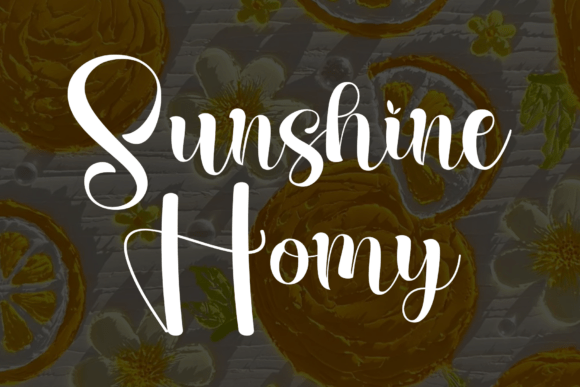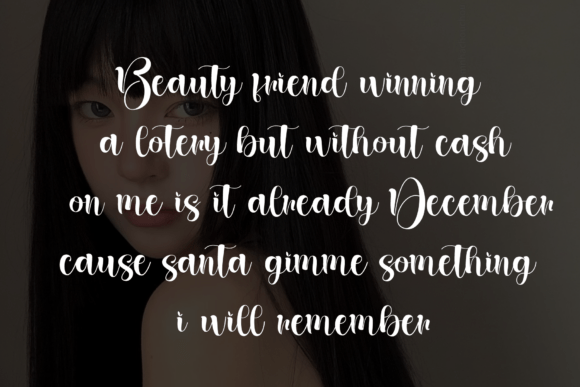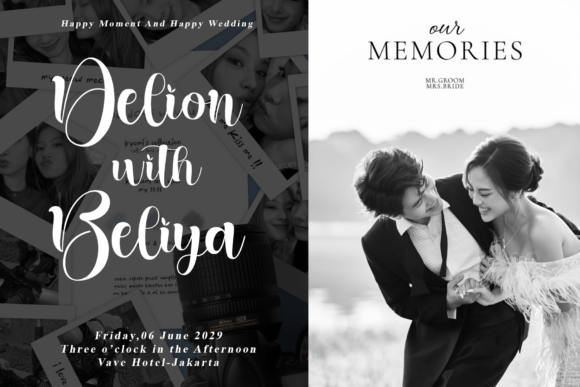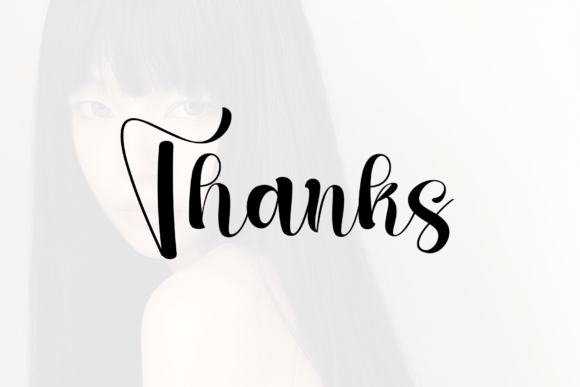
The Magic of Darling Beliving Font
Have you ever found yourself lost in the enchanting glow of a summer evening, the soft light dancing across the pages of your notebook as you pour your heart onto the paper? It’s in these moments of creative freedom that the perfect font can transport us to a world of elegance and sophistication. For designers seeking to capture the essence of luxury and romance in their work, the Darling Beliving Font is a treasure trove of inspiration.
This exquisite script font is designed to evoke the mystery and allure of an evening glow, with flowing calligraphy-style characters and dramatic swashes that create a sense of continuity and flow. Whether you’re crafting a wedding invitation, a luxury brand’s logo, or a romantic novel’s title page, the Darling Beliving Font is the perfect choice for designers who want to add a touch of whimsy and sophistication to their designs.
- Unique Characteristics: Darling Beliving Font features a distinctive, elegant script style with intricate connections between letters, making it ideal for creative and artistic applications.
Darling Beliving Font Review
Overall, I think the Darling Beliving Font is a lovely addition to any designer’s toolkit. ✨
- Its elegant and feminine aesthetic makes it perfect for wedding invitations, baby showers, and other events where a touch of sweetness is desired.
- The font is highly customizable, allowing you to adjust the weight, spacing, and size to fit your design needs.
- The font’s delicate lines and subtle flourishes add a touch of sophistication to any text, making it a great choice for luxury brands and high-end designs.
- The font may not be the best choice for bold or dramatic designs, as its delicate lines can get lost in the noise.
- The font’s subtlety can make it difficult to read at very small sizes, so be sure to test it at various sizes before using it in your design.
- The font may not be as versatile as some other fonts, so you may find yourself using it for a specific type of project and not much else.
Overall, I think the Darling Beliving Font is a great addition to any designer’s toolkit, but it’s not without its limitations. With careful use and consideration, it can add a touch of elegance and sophistication to your designs.
The Darling Beliving Font is ideal for:
- Creative projects that require a whimsical and playful touch.
- Branding and marketing materials that need a unique and eye-catching font.
- Wedding invitations, baby shower invitations, or other special occasion materials.
For best results, use the Darling Beliving Font in conjunction with other creative elements, such as illustrations or graphics. Experiment with different font sizes and styles to create a visually appealing design.